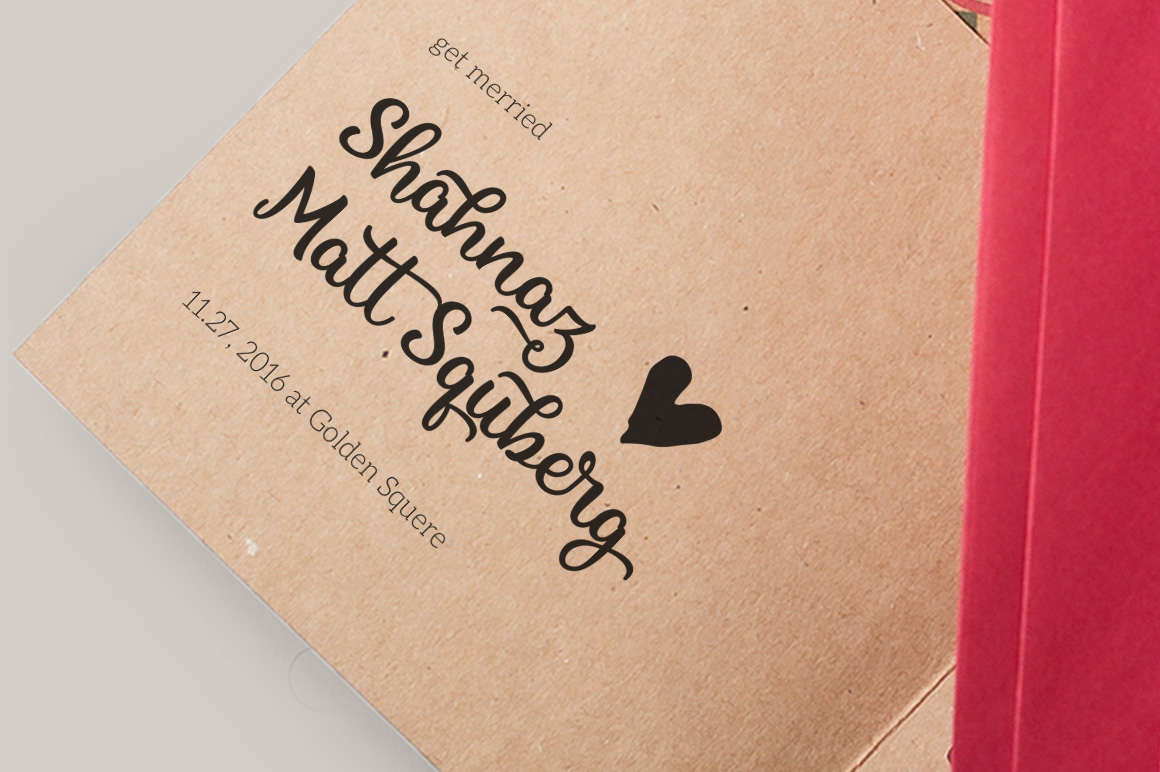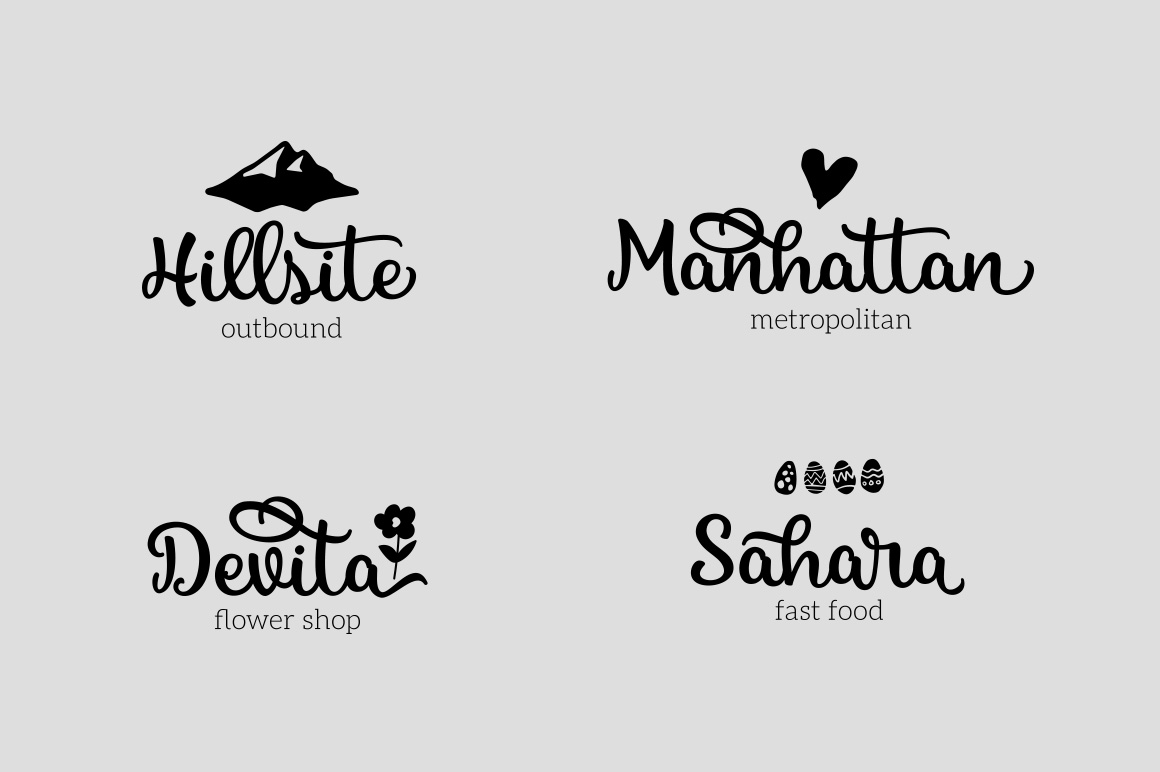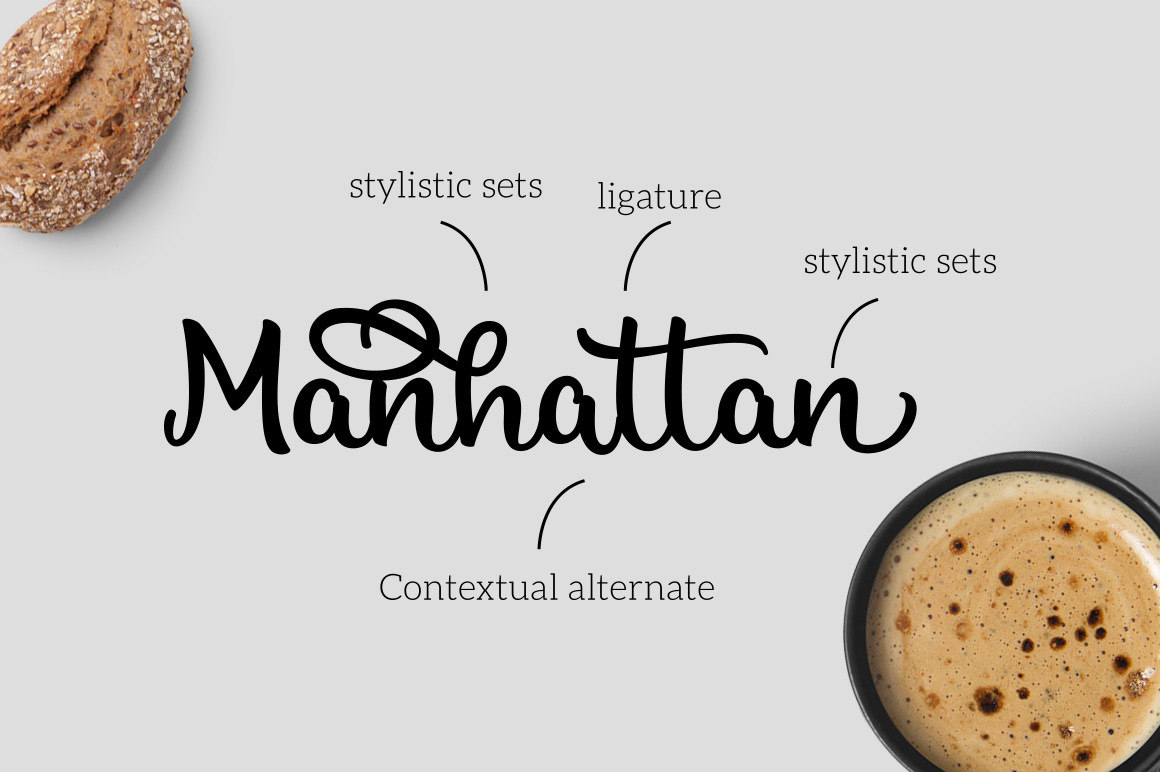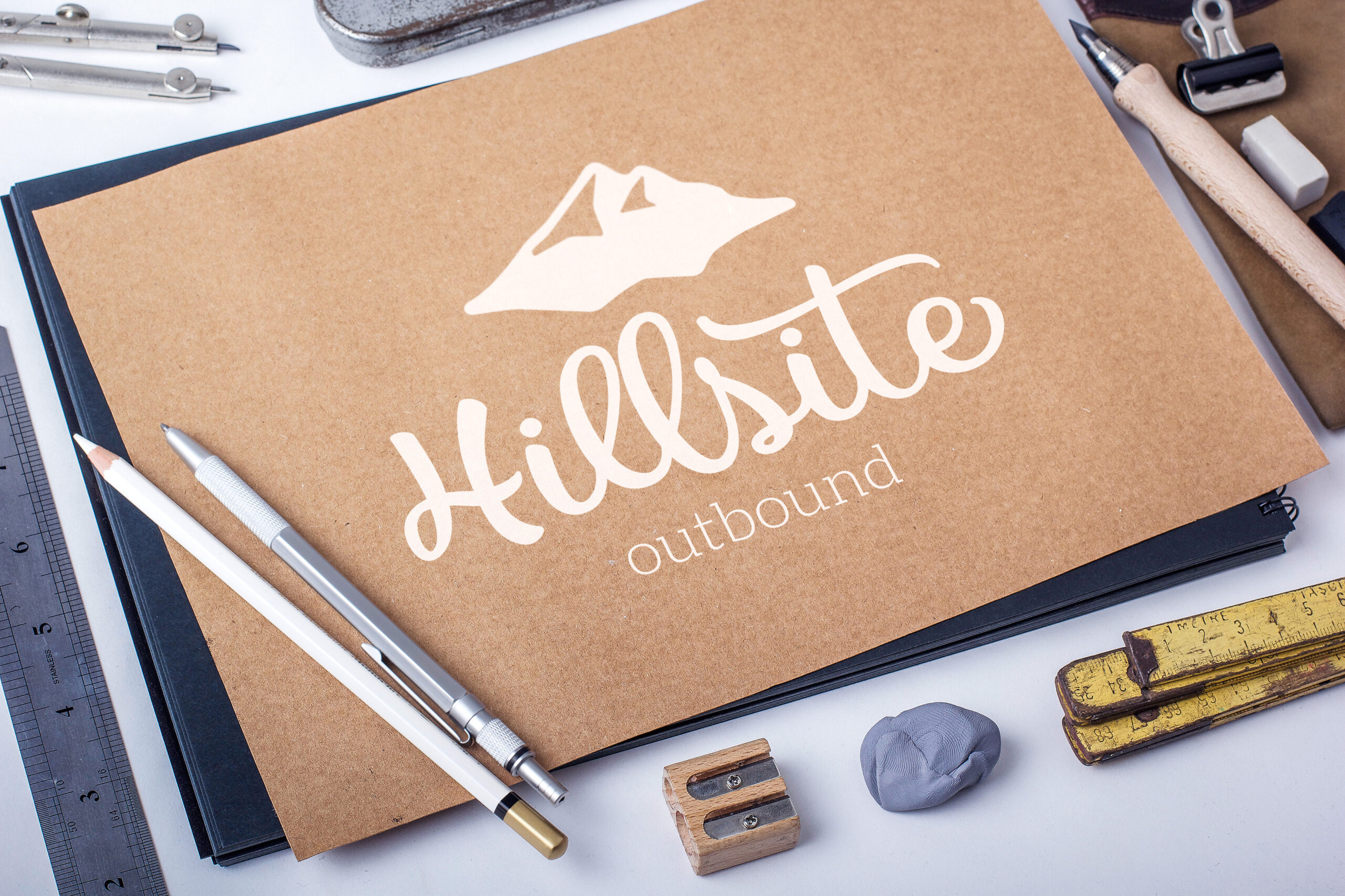
Nicky Font
About Nicky Font
Nicky is a beautiful script font that is simultaneously bold and delicate. It has even weighting and stylistic flourishes, and is compatible with a large number of designs.